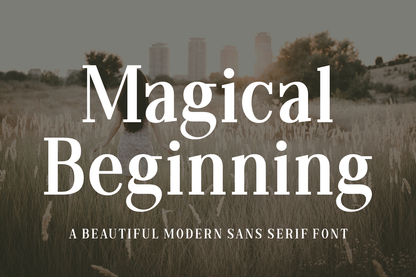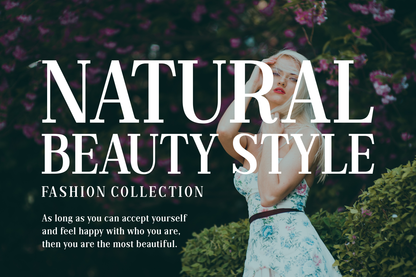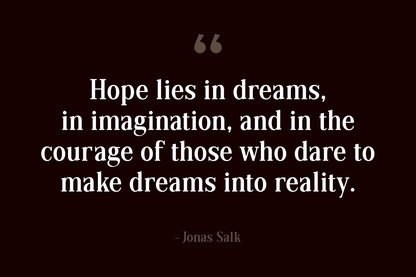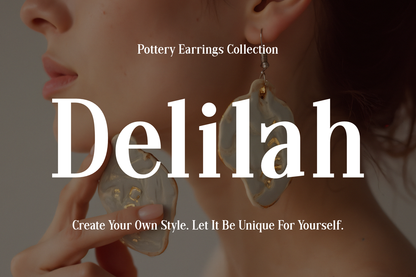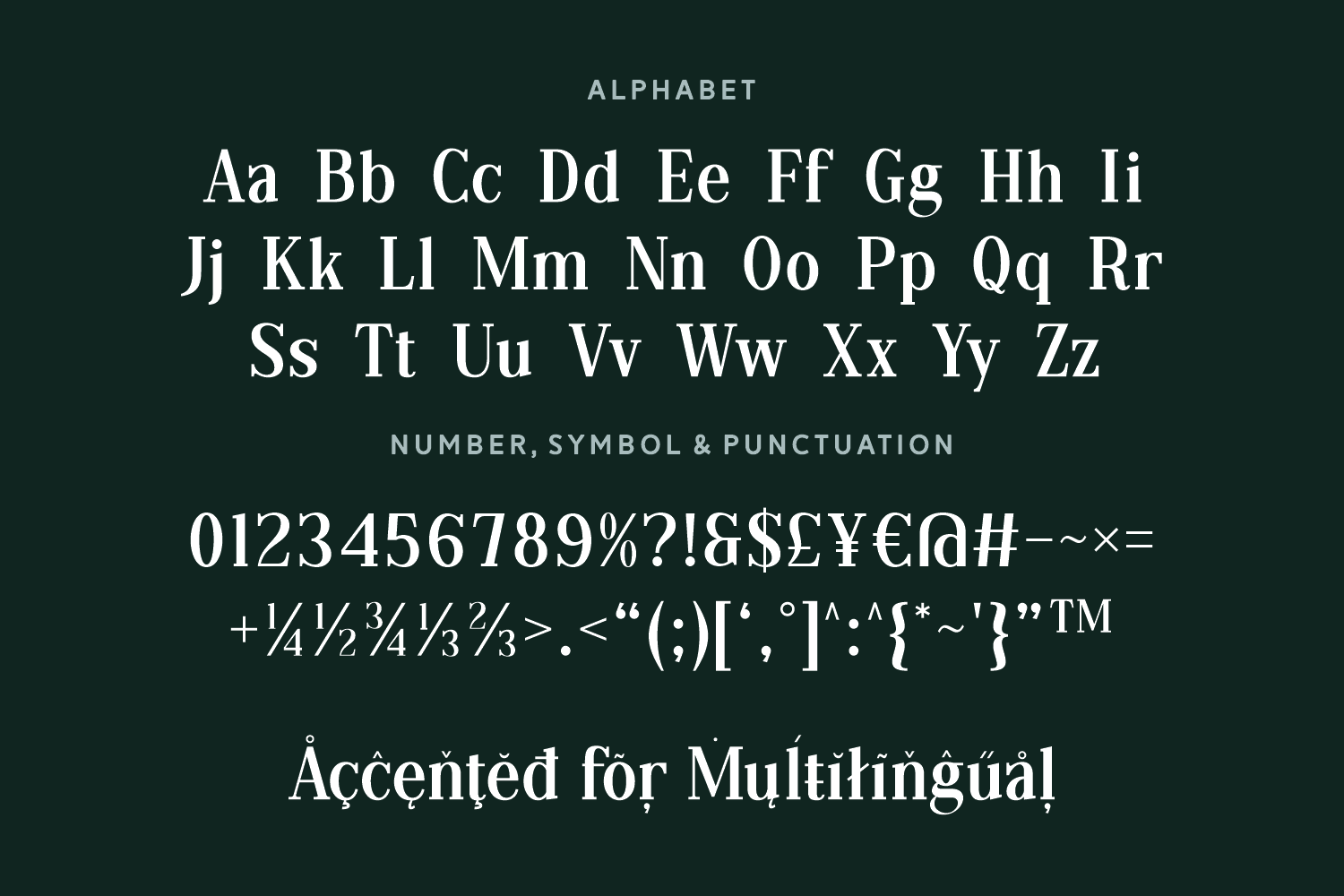
Magical Beginning is a beautiful modern serif font with a soft, romantic essence. Its graceful curves and refined proportions evoke a sense of serenity and warmth, making it ideal for wedding stationery, branding, book covers, and heartfelt editorial layouts. Whether you're crafting a dreamy invitation or a poetic headline, this font brings timeless elegance to your design.
Its delicate serif detailing adds charm without overpowering, offering a clean yet expressive style that fits both digital and print. Let Magical Beginning set the tone for stories filled with emotion, nostalgia, and sophistication.